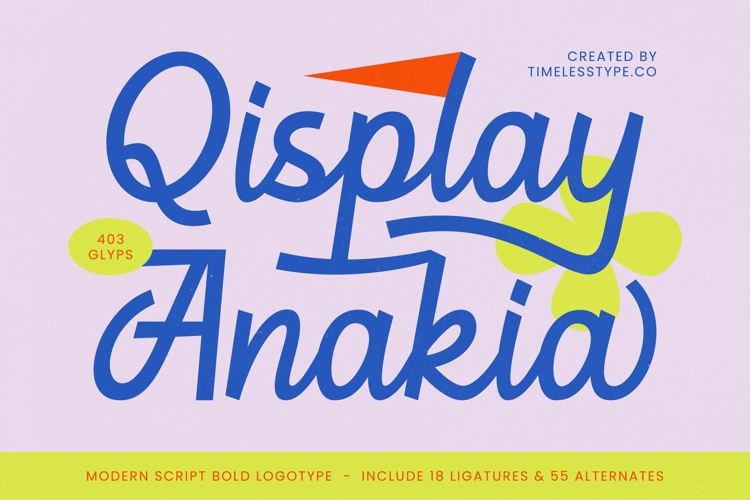
Qisplay Anakia - Modern Script Bold
Qisplay Anakia - Modern Script Bold Logotype
Font Qisplay Anakia - Modern Script Bold Logotype Script brings an unparalleled vibrancy and contemporary flair to any design endeavor. This isn't just a font; it's a statement, meticulously crafted to capture attention with its dynamic, expressive flow and distinctive bold script personality. Its robust letterforms radiate a confident yet approachable charm, making it an ideal choice for projects demanding both sophistication and a touch of playful energy.
Immerse your audience in a world of bespoke typography with Font Qisplay Anakia - Modern Script Bold Logotype Script. Boasting an impressive collection of 18 ligatures and 55 alternates, this font offers unparalleled versatility, allowing designers to create truly unique and memorable compositions. Each character is expertly drawn to ensure seamless connections and an authentic, hand-crafted aesthetic that elevates your visual narratives.
Expand your design horizons with the inherent adaptability of Font Qisplay Anakia - Modern Script Bold Logotype Script. With its extensive multilingual support, Font Qisplay Anakia - Modern Script Bold Logotype Script adapts seamlessly across global markets, making it incredibly versatile for international projects. This comprehensive language coverage ensures your message resonates clearly and beautifully, irrespective of geographical boundaries.
Perfectly poised for impact, Font Qisplay Anakia - Modern Script Bold Logotype Script is an indispensable asset for creating stunning brand identity, engaging packaging, captivating social media graphics, and high-impact headlines. Its bold presence makes it ideal for luxury branding, editorial design, and any application where strong visual appeal and memorability are paramount. Elevate your next professional project with its undeniable charm.